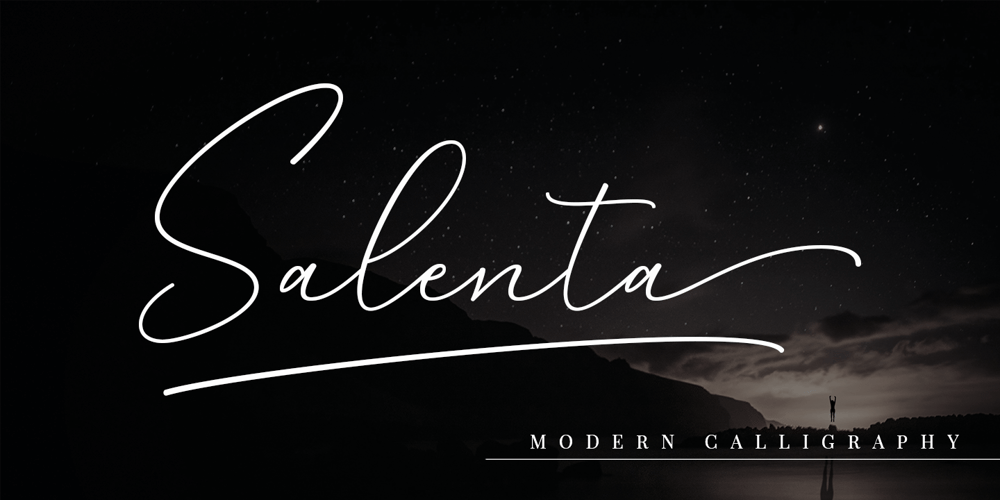
Salenta Font Family was designed by M Akmal and published by Mega Type. Salenta contains 1 styles and family package options. INTRODUCINGSalenta is a new beautiful calligraphy font, Salenta is a casual, pretty and soft font with subtle and charming ink strokes. Salenta is perfect for elegant logos, signatures, high-end packaging, wedding stationery, websites, and any other project that requires a handwritten and luxurious touch.Salenta features OpenType stylistic alternates, ligatures and International support for most Western Languages is included. To enable the OpenType Stylistic alternates, you need a program that supports OpenType features such as Adobe Illustrator CS, Adobe Indesign & CorelDraw X6-X7, Microsoft Word 2010 or later versions.Salenta is coded with PUA Unicode, which allows full access to all the extra characters without having special designing software. Mac users can use Font Book , and Windows users can use Character Map to view and copy any of the extra characters to paste into your favourite text editor/app.If you have any question, don’t hesitate to contact me by email : megatype04@gmail.comThanks so much for looking and Enjoy it!